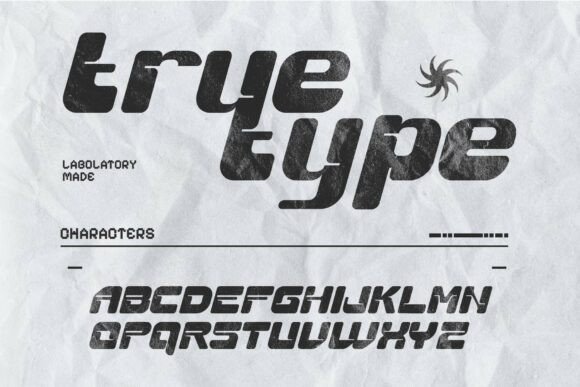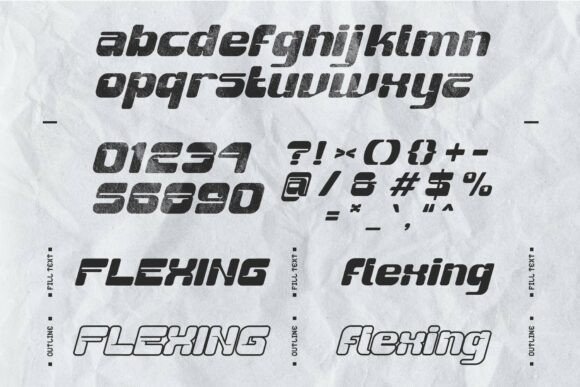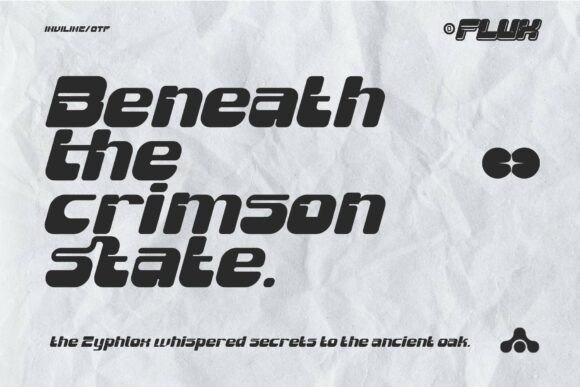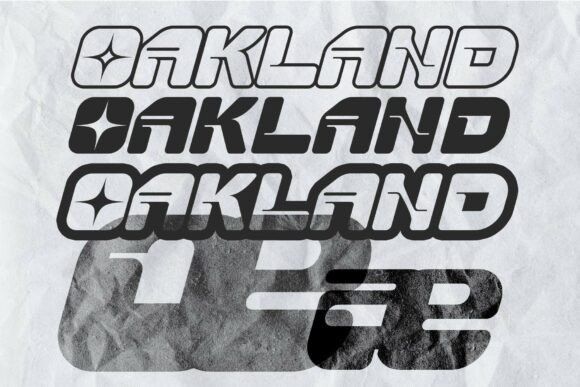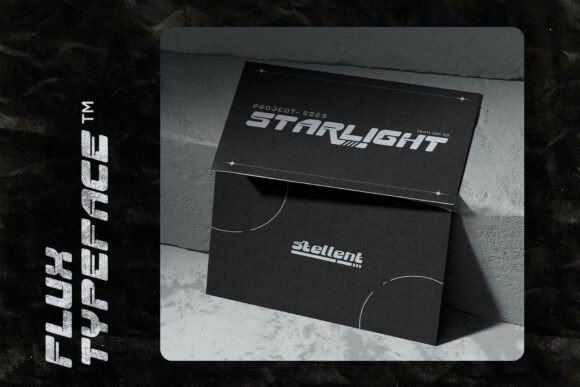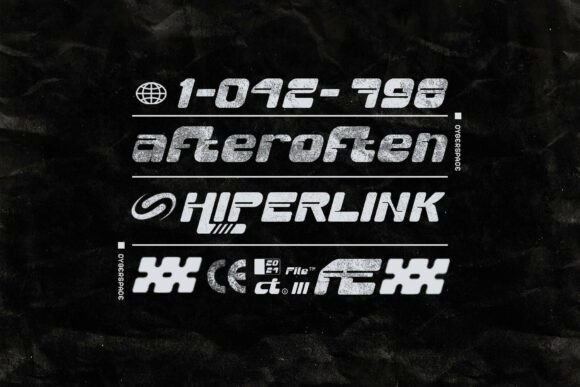
Introducing Flux Regular Font: A Bold Y2K-Inspired Digital Typeface
In the world of digital design, typography plays a crucial role in conveying the tone and aesthetic of a project. For designers and crafters looking to add a touch of nostalgia to their work, Flux Regular Font is an excellent choice. This bold Y2K-inspired digital typeface is designed to bring back the iconic tech vibes of the past, making it perfect for modern designs that require a retro twist.
What is Flux Regular Font?
Flux Regular Font is a digital typeface that embodies the spirit of the Y2K era, with its rounded corners, chunky strokes, and slightly distressed texture. This unique combination of features gives Flux a distinctive look that is both nostalgic and futuristic. The font comes with 120+ glyphs in both OTF and TTF formats, making it versatile and compatible with various design software.
Key Features of Flux Regular Font
- Y2K-Inspired Design: Flux Regular Font is inspired by the iconic typography of the Y2K era, making it perfect for designers looking to add a retro touch to their work.
- Rounded Corners and Chunky Strokes: The font features rounded corners and chunky strokes, giving it a bold and futuristic look.
- Slightly Distressed Texture: The slightly distressed texture adds a layer of depth and character to the font, making it ideal for designs that require a touch of grit and texture.
- 120+ Glyphs: Flux Regular Font comes with 120+ glyphs, including letters, numbers, and symbols, making it a versatile choice for various design projects.
Use Cases for Flux Regular Font
Flux Regular Font is an excellent choice for various design projects, including:
- Futuristic Posters: The font’s bold and futuristic design makes it perfect for creating eye-catching posters for movies, events, or product launches.
- Cyberpunk Branding: Flux Regular Font is ideal for creating cyberpunk-inspired branding, including logos, business cards, and letterheads.
- Retro Tech Visuals: The font’s retro aesthetic makes it a great choice for creating retro-style tech visuals, including social media graphics, infographics, and presentations.
- Creative Headlines: Flux Regular Font is perfect for creating creative headlines for blogs, articles, and websites, adding a touch of personality and flair to the text.
Tips for Using Flux Regular Font
To get the most out of Flux Regular Font, here are some tips to keep in mind:
- Experiment with Colors: Flux Regular Font looks great with bold and bright colors, so don’t be afraid to experiment with different color schemes.
- Mix and Match with Other Fonts: The font pairs well with other sans-serif fonts, so try mixing and matching it with other fonts to create a unique look.
- Use it for Emphasis: Flux Regular Font is perfect for creating emphasis, so use it to draw attention to important text or headings.
Flux Regular Font is an excellent choice for designers and crafters looking to add a touch of nostalgia to their work. With its bold Y2K-inspired design, rounded corners, chunky strokes, and slightly distressed texture, Flux is perfect for creating futuristic posters, cyberpunk branding, retro tech visuals, and creative headlines. The font’s versatility, compatibility, and extensive glyph library make it an excellent addition to any designer’s toolkit.